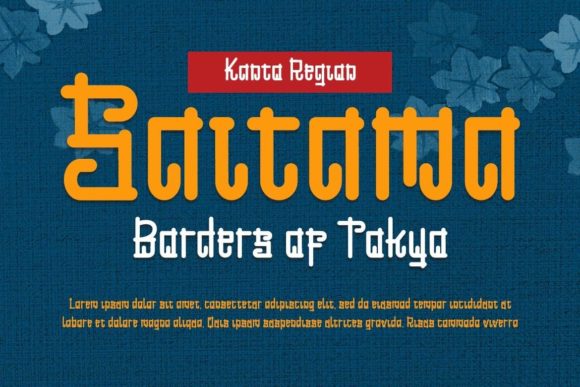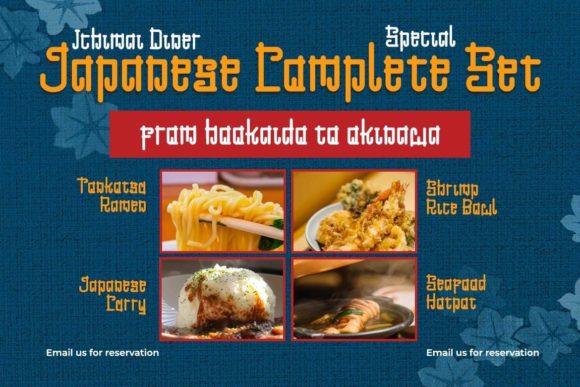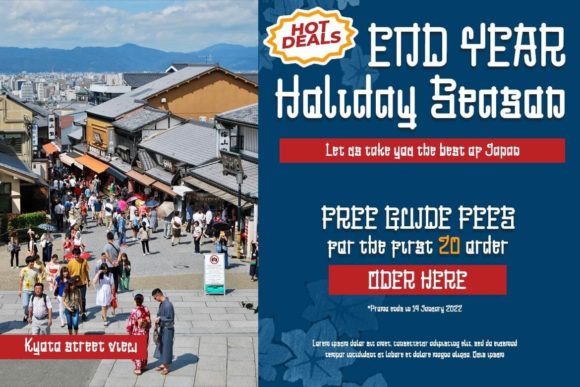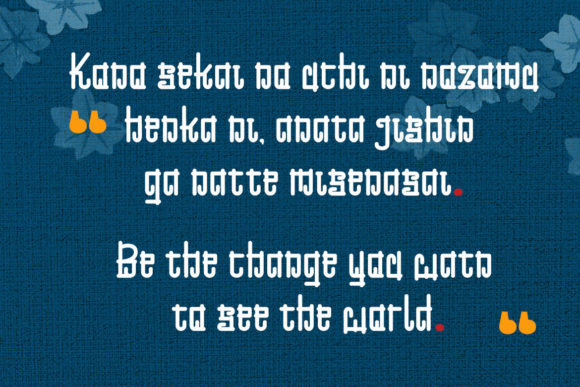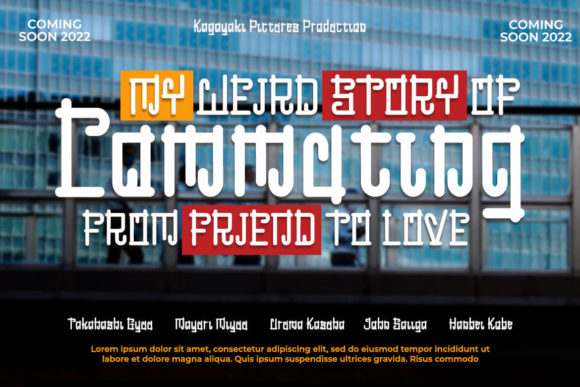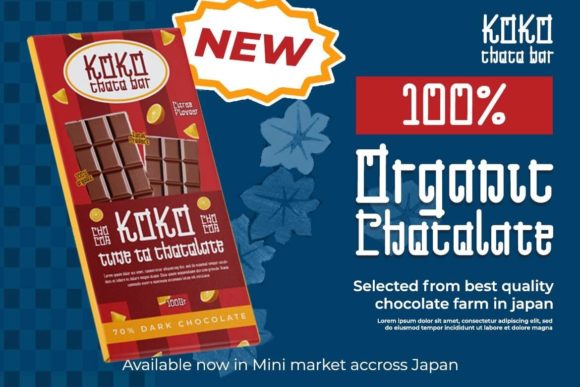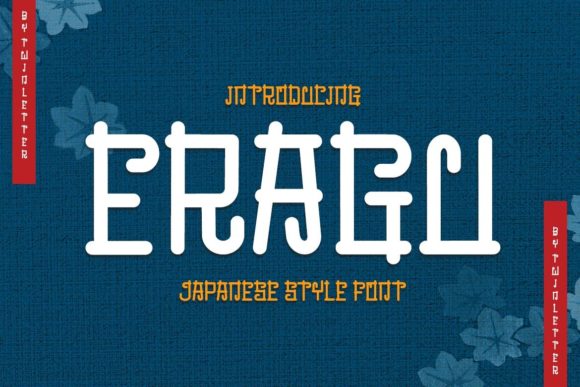
Eragu Font: A Japanese-Inspired Display Font Like No Other
In the world of typography, fonts come and go, but some leave a lasting impression on designers and crafters alike. Eragu Font is one such font that has been making waves in the design community with its unique and quirky appearance. Inspired by Japanese aesthetics, Eragu Font is a display font that stands out from the rest, both in terms of shape and style.
What Sets Eragu Font Apart?
Eragu Font is not your average font. Its distinctive shape and style make it a standout in any design project. The font’s creator has drawn inspiration from Japanese culture, incorporating elements that give it a distinctly Asian feel. From its bold lines to its intricate details, Eragu Font is a true masterpiece of typographic design.
A New and Unusual Appearance
One of the things that makes Eragu Font truly unique is its new and unusual appearance. Unlike other fonts that may look similar or familiar, Eragu Font has a quirky charm that sets it apart. Its unusual shape and style make it perfect for designers and crafters looking to add a touch of personality to their projects. Whether you’re working on a logo, a poster, or a website, Eragu Font is sure to turn heads.
Eragu Font is a dream come true for designers and crafters who are looking for a font that will help their projects stand out. With its bold and eye-catching design, Eragu Font is perfect for a wide range of applications, from branding and advertising to crafting and DIY projects. Whether you’re a professional designer or a hobbyist crafter, Eragu Font is a versatile font that can help you achieve your creative goals.
Key Features of Eragu Font
- Japanese-Inspired Design: Eragu Font draws inspiration from Japanese culture, giving it a unique and distinctive look.
- Unique Shape and Style: Eragu Font’s shape and style set it apart from other fonts, making it perfect for designers and crafters looking for something new and different.
- Quirky and Playful: Eragu Font has a quirky and playful charm that makes it perfect for projects that require a touch of personality.
- Versatile: Eragu Font can be used for a wide range of applications, from branding and advertising to crafting and DIY projects.
How to Use Eragu Font in Your Projects
Using Eragu Font in your projects is easy. Here are a few tips to get you started:
- Pair it with a Simple Font: Eragu Font is bold and eye-catching, so it’s best to pair it with a simple font to create contrast.
- Use it for Headings: Eragu Font is perfect for headings and titles, where its bold and eye-catching design can really shine.
- Experiment with Colors: Eragu Font looks great in a variety of colors, so don’t be afraid to experiment and find the perfect hue for your project.
Eragu Font is a unique and quirky display font that is sure to turn heads. With its Japanese-inspired design, unusual shape and style, and quirky charm, Eragu Font is perfect for designers and crafters looking to add a touch of personality to their projects. Whether you’re working on a logo, a poster, or a website, Eragu Font is a versatile font that can help you achieve your creative goals.